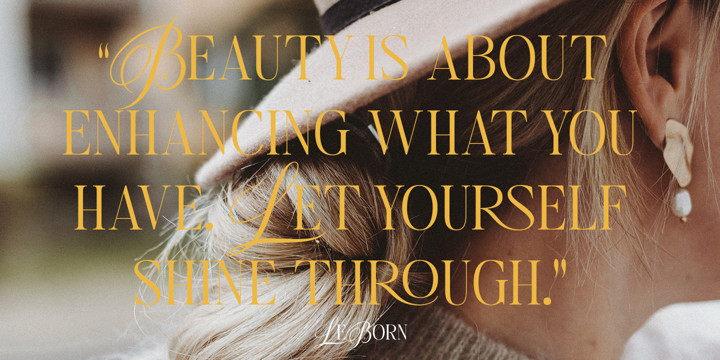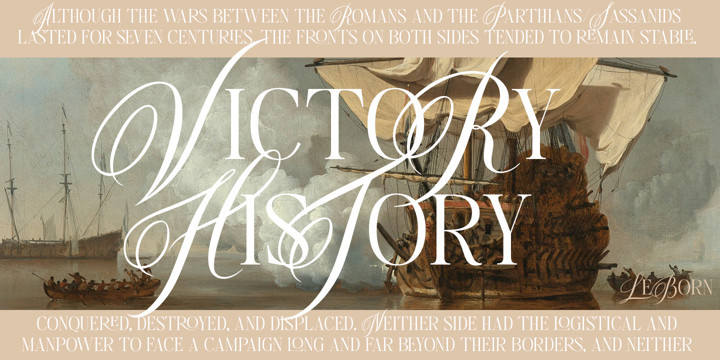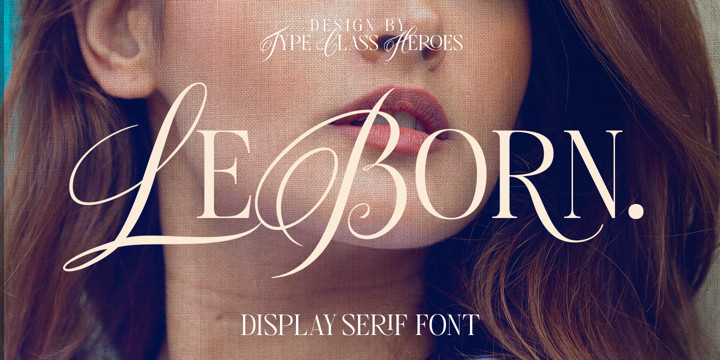
Le Born Font
Le Born FontHello I’m really excited to introduce,
LeBorn is a luxury calligraphy combine with modern serif ligatures and special alternative glyphs so you can create a lots with layouts and compositions.
LeBorn perfect for poster design, book covers, merchandise, fashion campaigns, newsletters, branding, advertising, magazines, greeting cards, album covers, and quote designs and more.